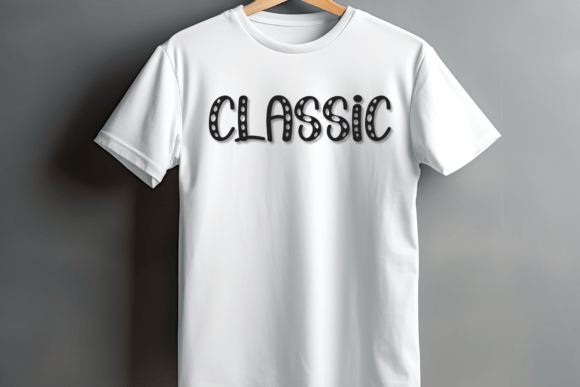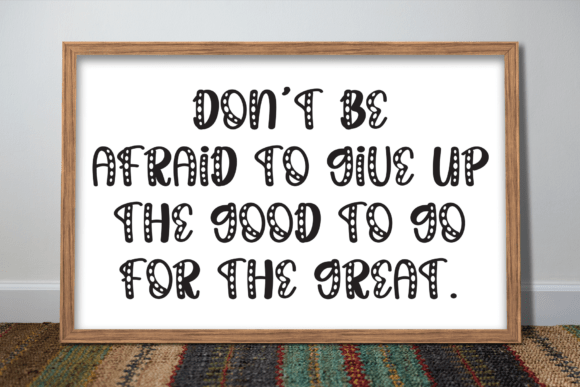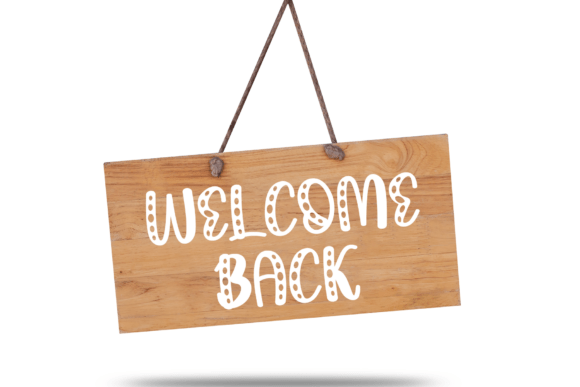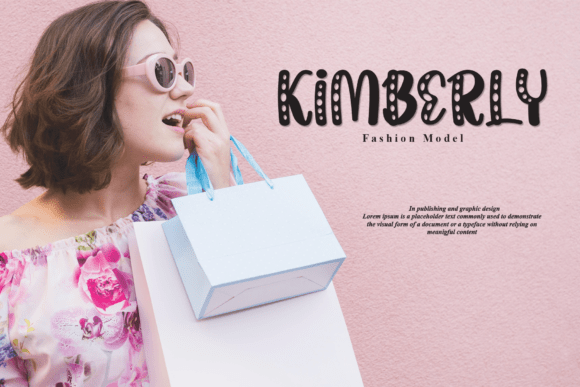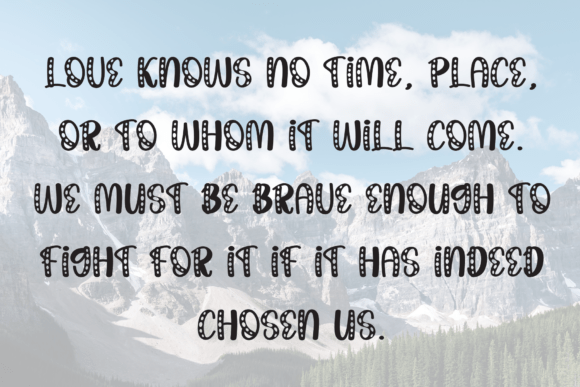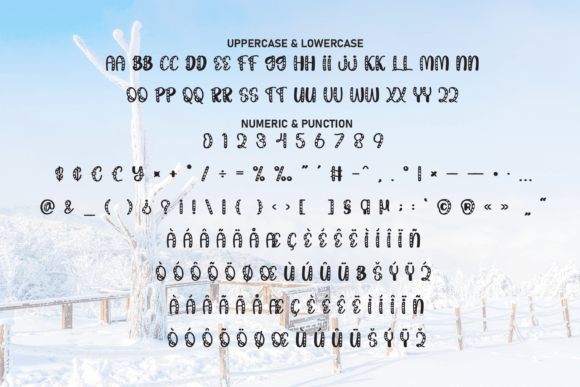
Introducing the Funky Winter Font: Elevate Your Designs with a Touch of Seasonal Flair
As the winter season approaches, designers and crafters are on the lookout for unique and creative elements to add a touch of seasonal charm to their projects. If you’re searching for a font that embodies the fun and playfulness of winter, look no further than the Funky Winter Font. This specially crafted font is designed to bring a dash of whimsy and style to your designs, making it perfect for a wide range of applications.
Unleash Your Creativity with Funky Winter Font
The Funky Winter Font is more than just a collection of letters – it’s a creative tool that can elevate your designs and give them an extraordinary experience. With its latest style letters, this font is ideal for various projects, including:
• Wall displays
• Wedding invitations
• Social media post logos
• Advertisements
• Product packaging
• Product designs
• Labels
• Photography
• Watermarks
• Invitations
• Stationery
• And any project that requires tasteful handwriting
Why Choose Funky Winter Font?
So, what sets the Funky Winter Font apart from other fonts on the market? Here are just a few reasons why designers and crafters love this font:
• Unique and Playful Style: The Funky Winter Font boasts a one-of-a-kind design that’s sure to add a touch of personality to your projects.
• Versatility: With its wide range of applications, this font is perfect for designers and crafters who work on various projects.
Tips for Using Funky Winter Font
To get the most out of the Funky Winter Font, here are a few tips to keep in mind:
• Experiment with Different Sizes: Play around with different font sizes to find the perfect balance for your project.
• Pair with Other Fonts: Combine the Funky Winter Font with other fonts to create a unique and eye-catching design.
• Use in Digital and Print Projects: The Funky Winter Font is versatile enough to be used in both digital and print projects.